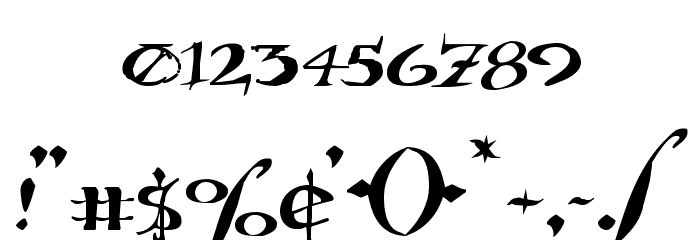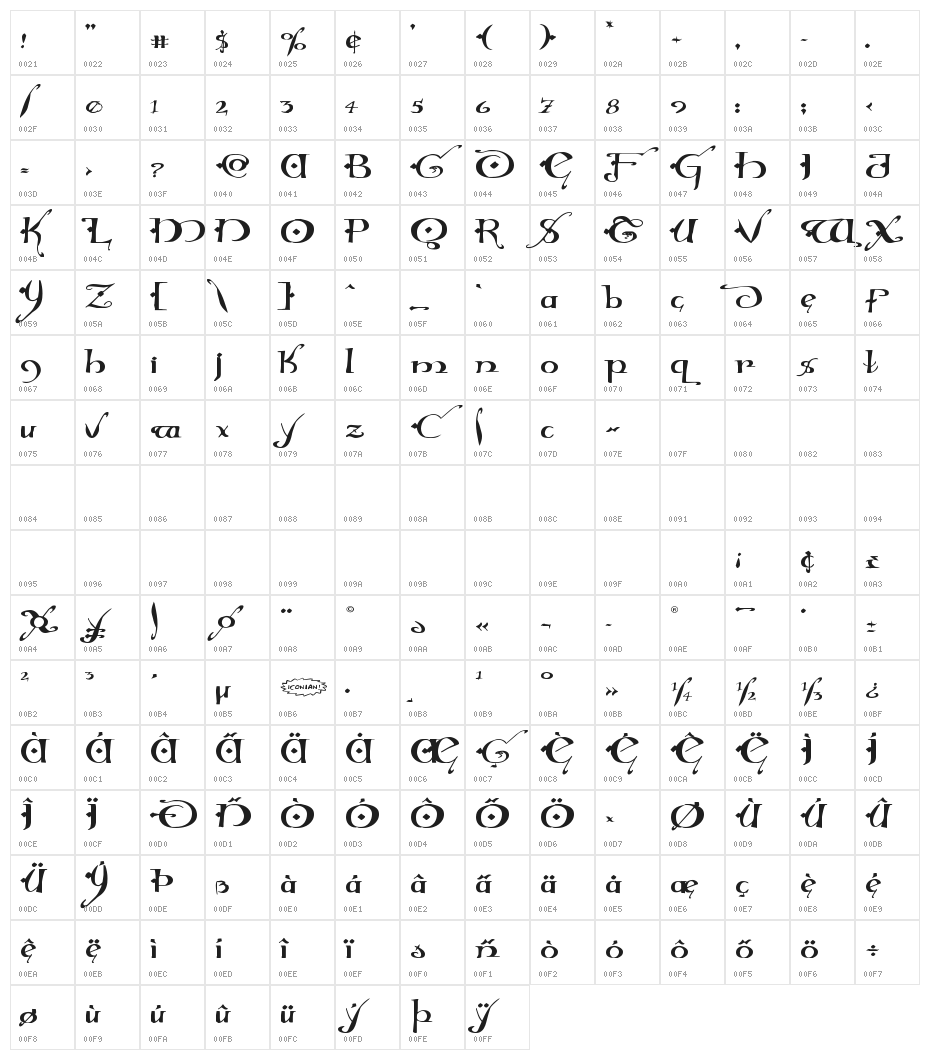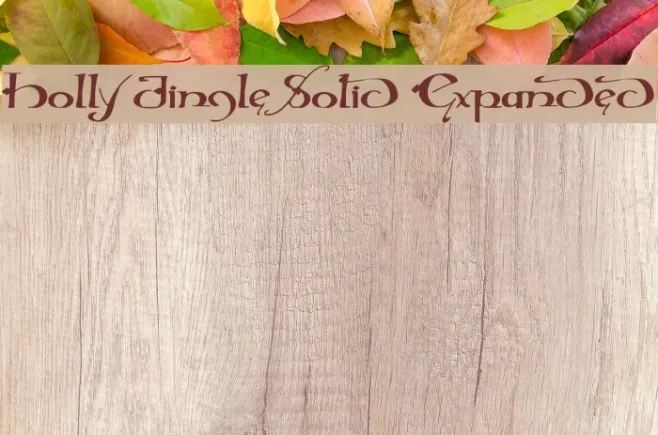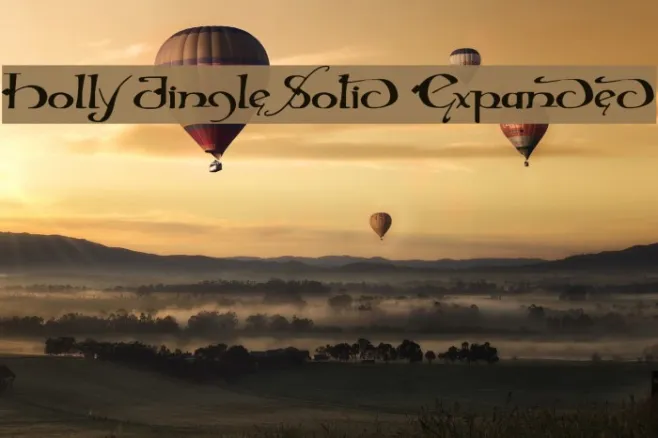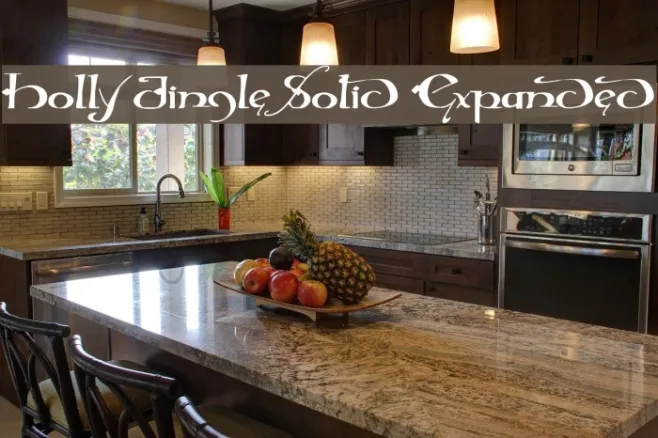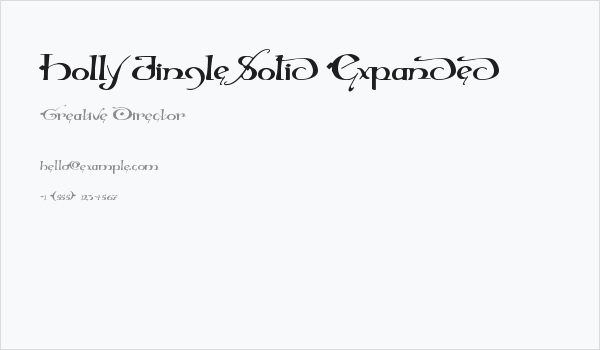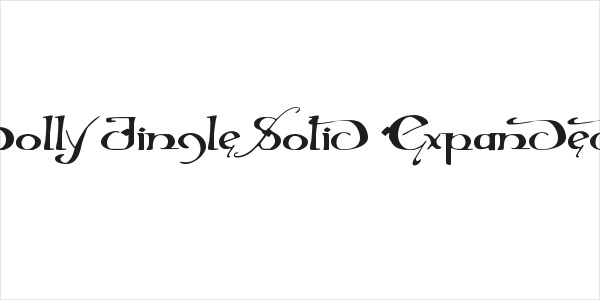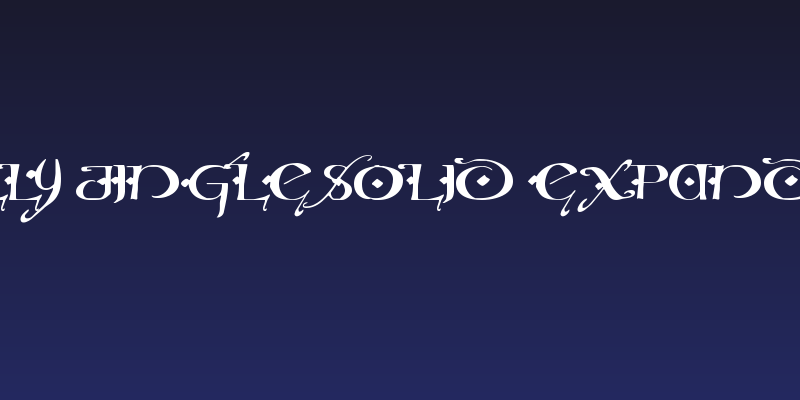
Holly Jingle Solid Expanded Font
Holly Jingle Solid Expanded Description
This font features an elaborate and decorative style, characterized by its intricate swirls and flourishes that extend from the main strokes of the letters. The uppercase letters are particularly ornate, with additional loops and embellishments that give them a festive and whimsical appearance. The lowercase letters maintain a similar decorative flair, though slightly more subdued, ensuring readability while still offering a unique aesthetic. The numbers and special characters follow the same design principles, integrating seamlessly with the alphabetic characters. The overall design is reminiscent of holiday or festive themes, making it ideal for seasonal projects.
| Use Case | Headlines, Logos, Decorative text |
| Proposed Projects | Ideal for holiday cards, festive invitations, decorative posters, and themed branding materials. |